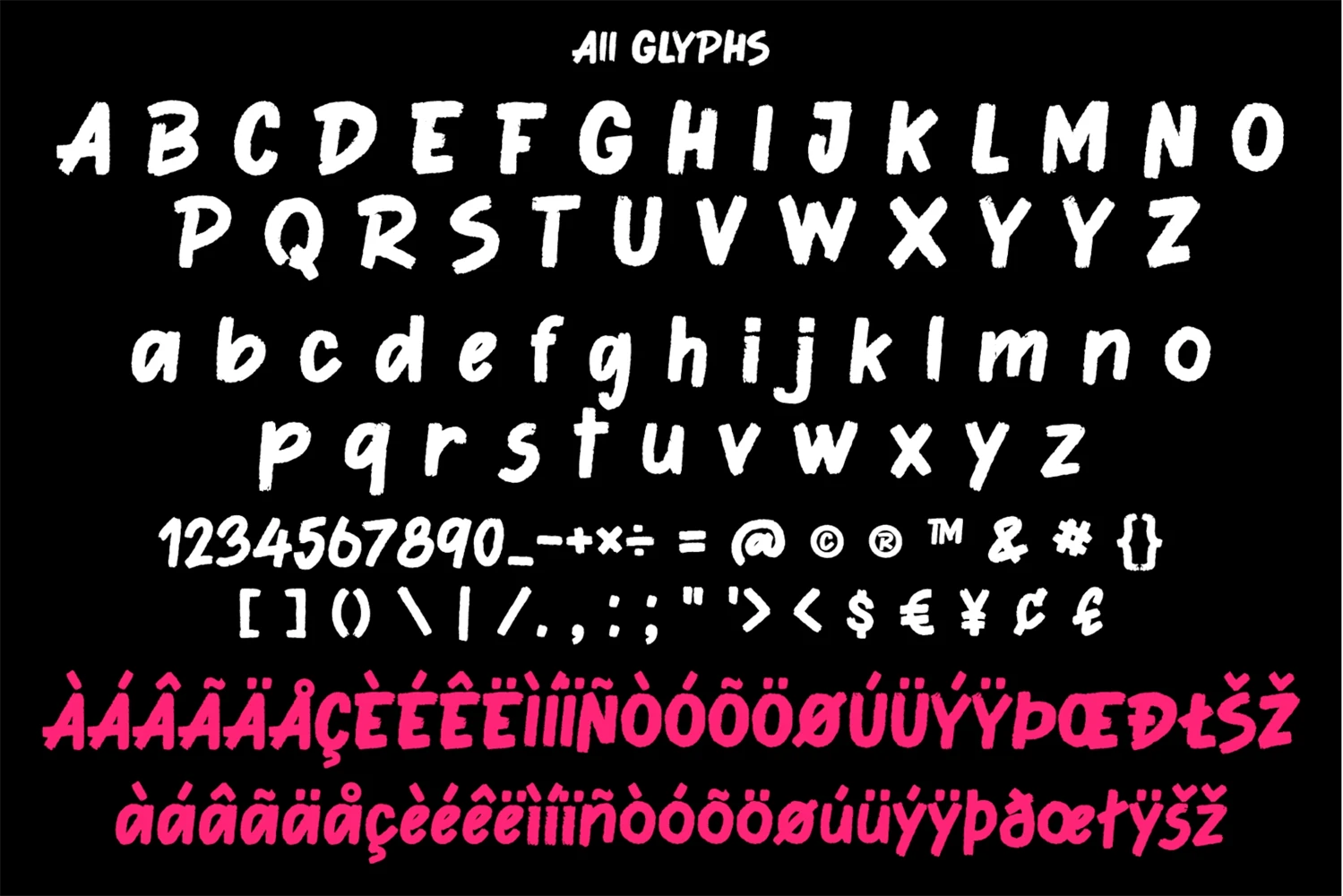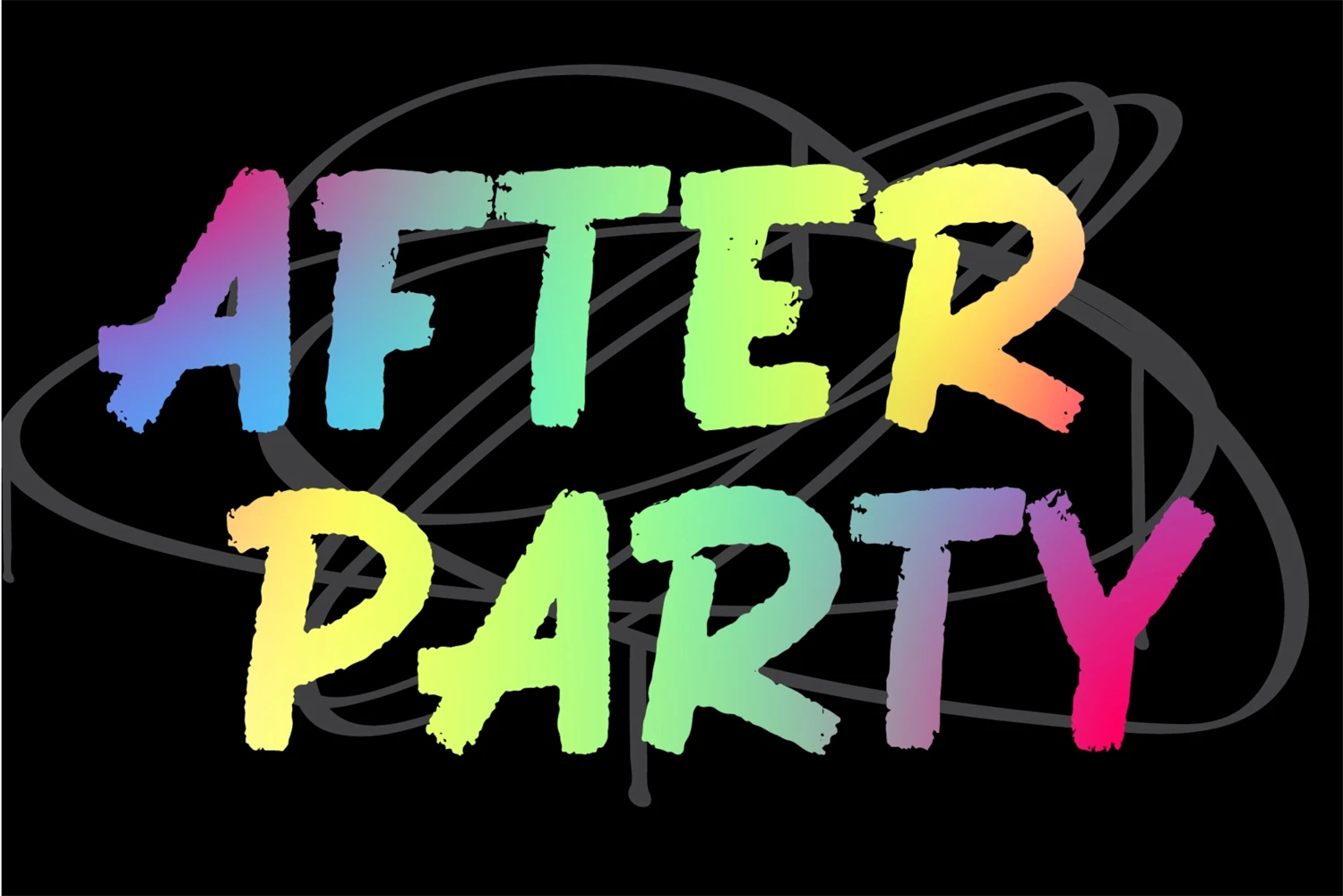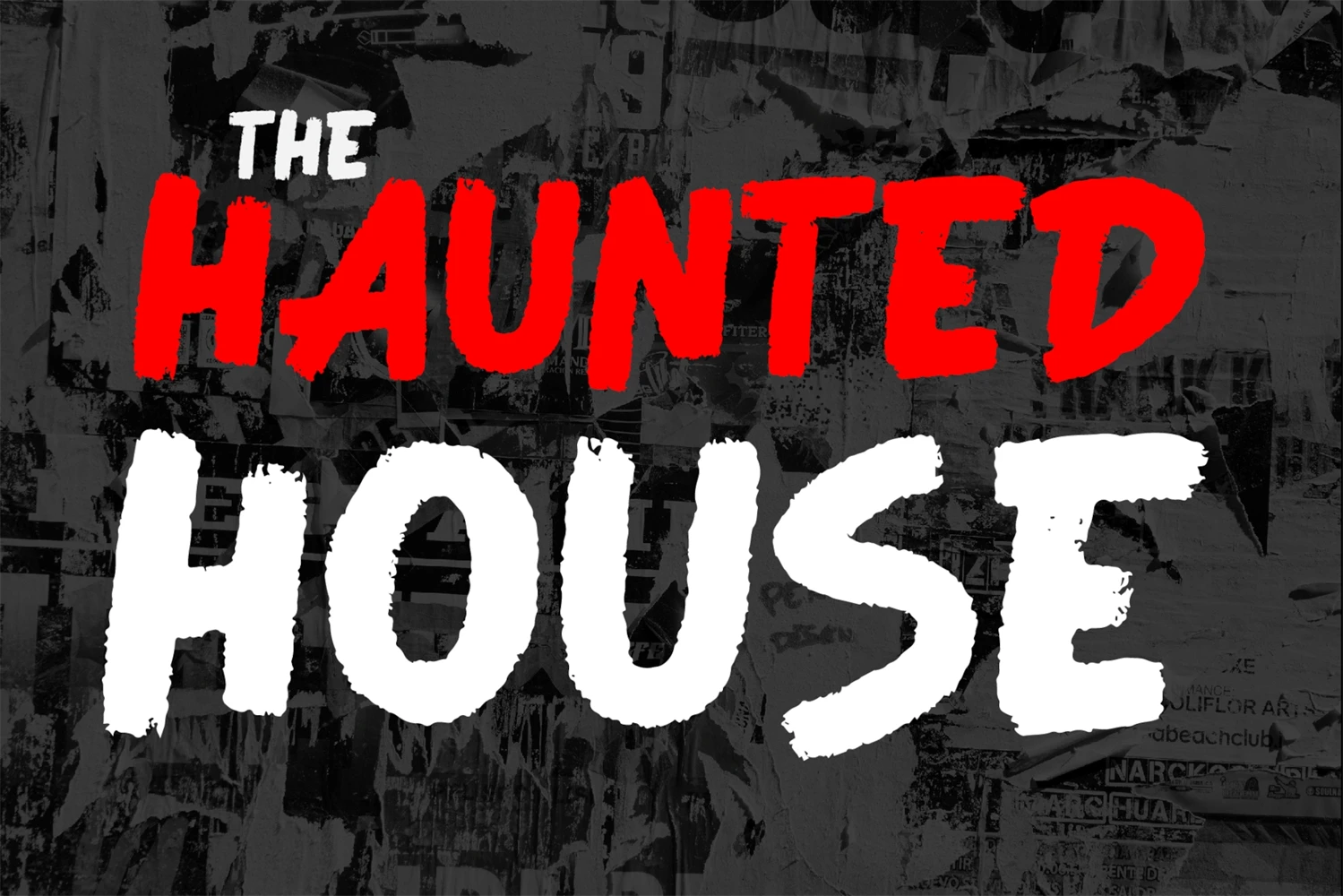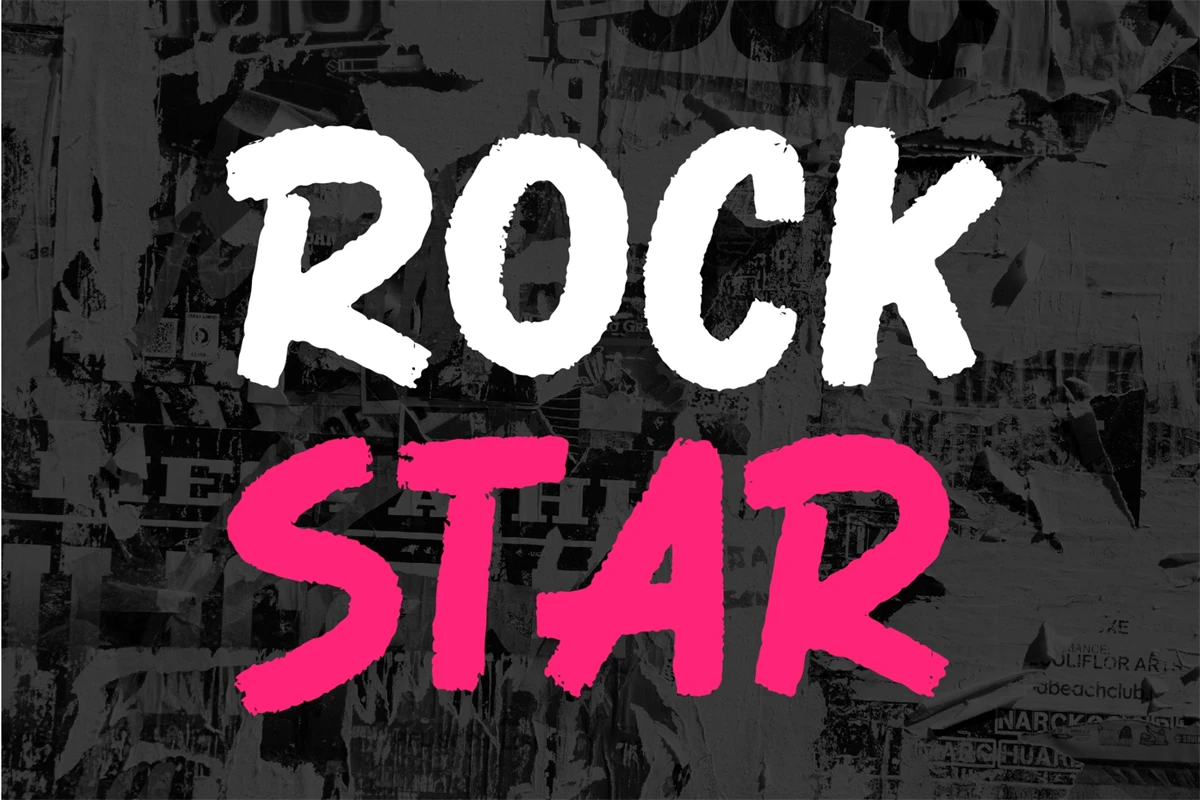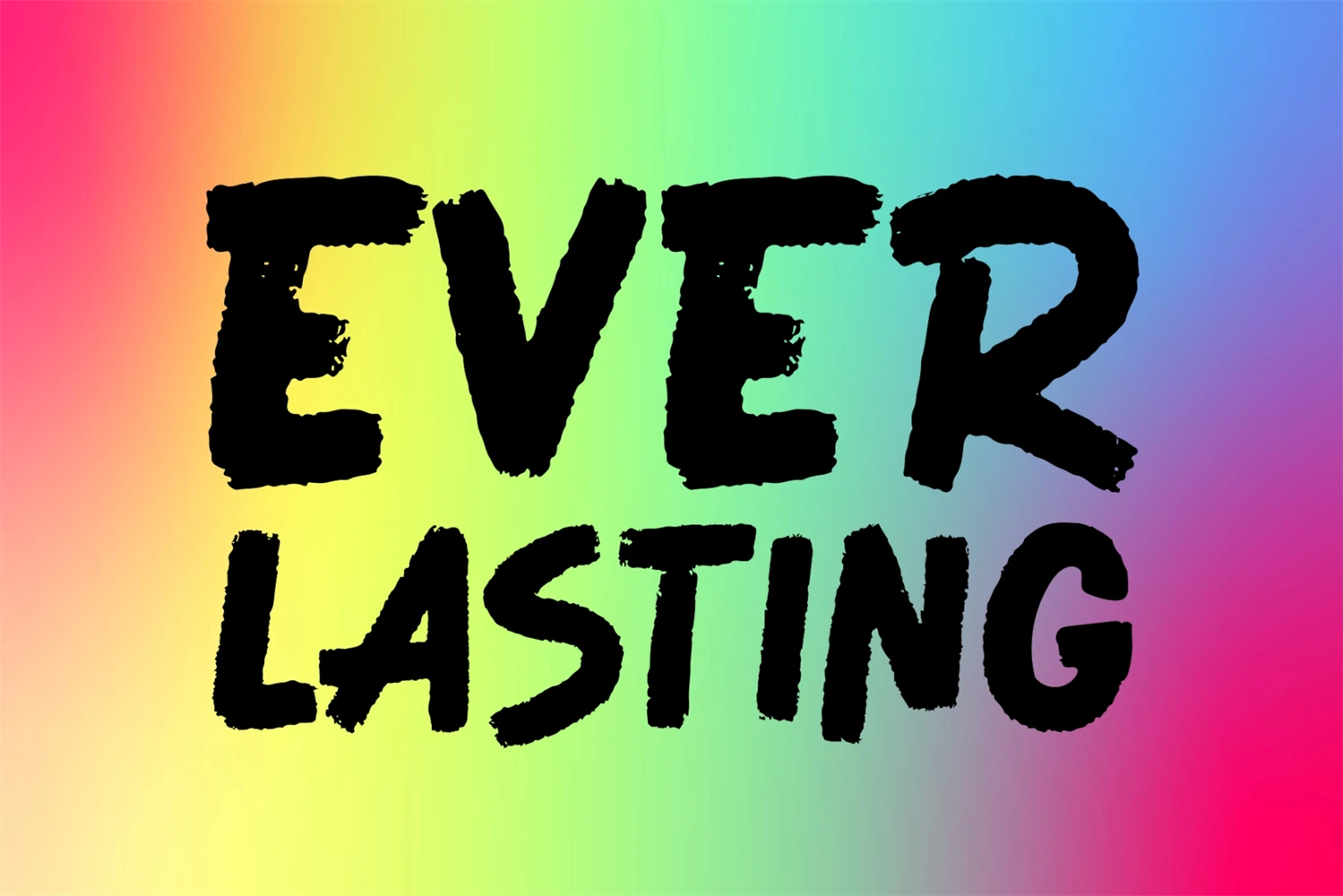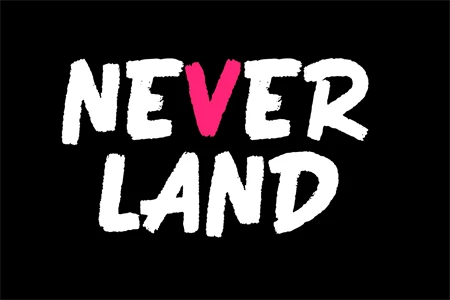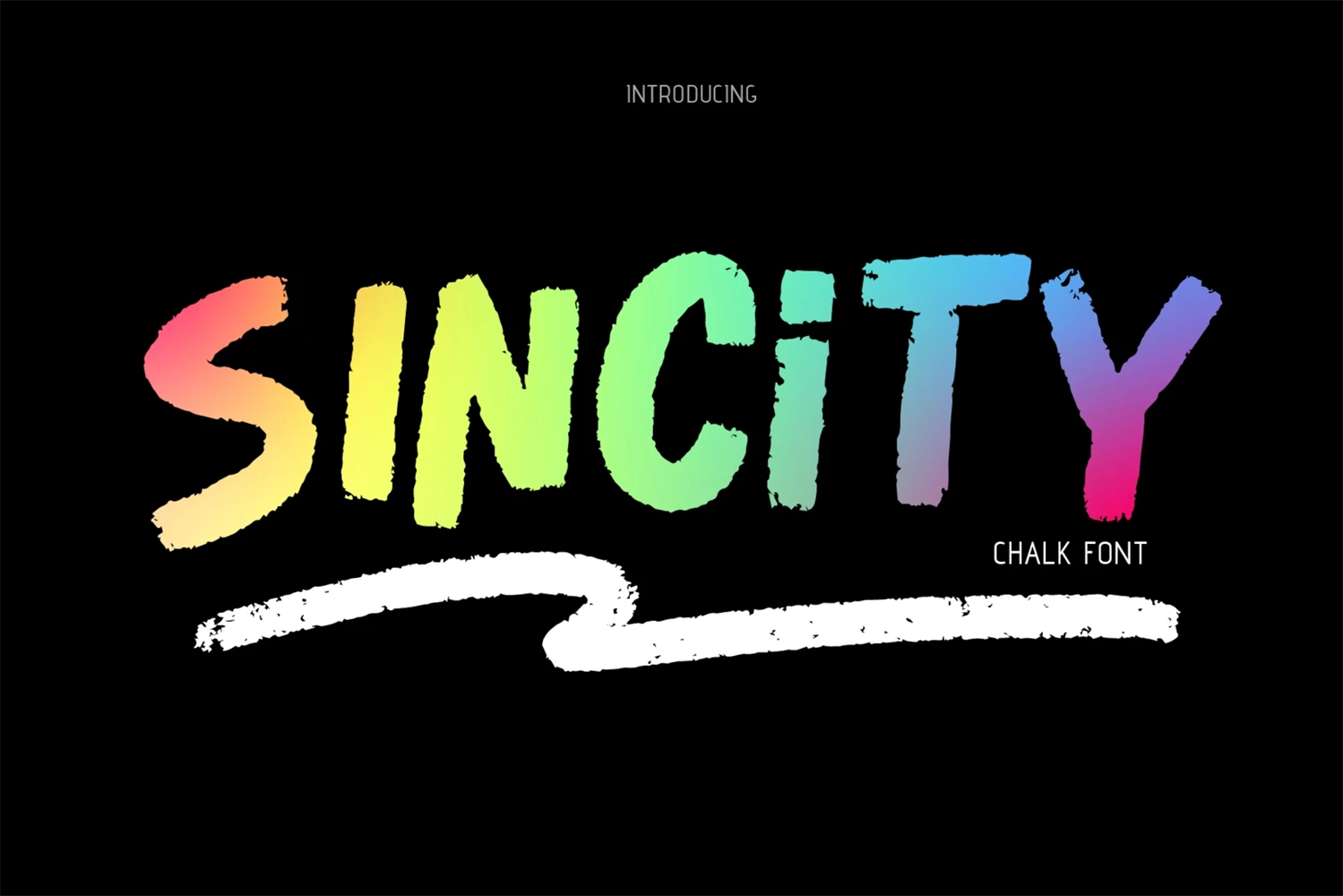
Sincity is a cool chalked display font, featuring a street art vibe. This font is suitable for designs such as t-shirts, logos, advertisements, clothing, and more.